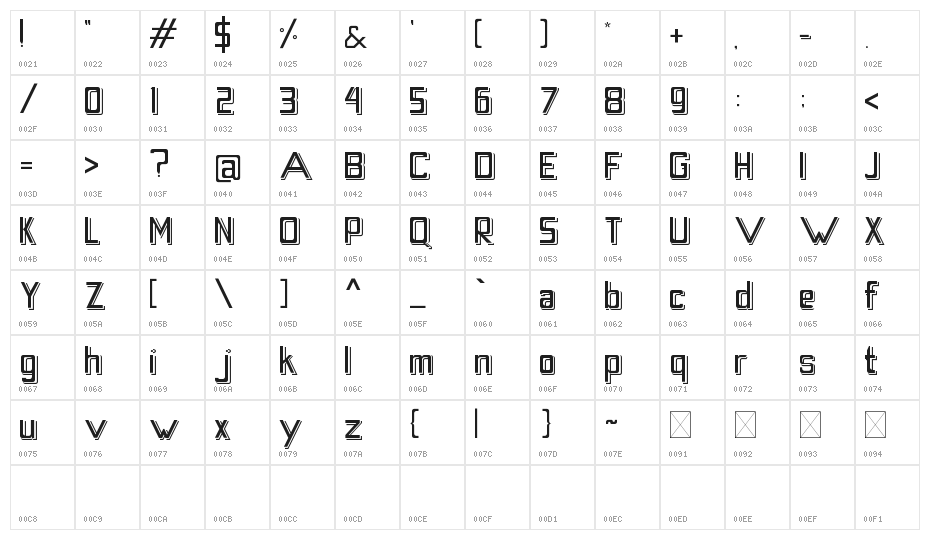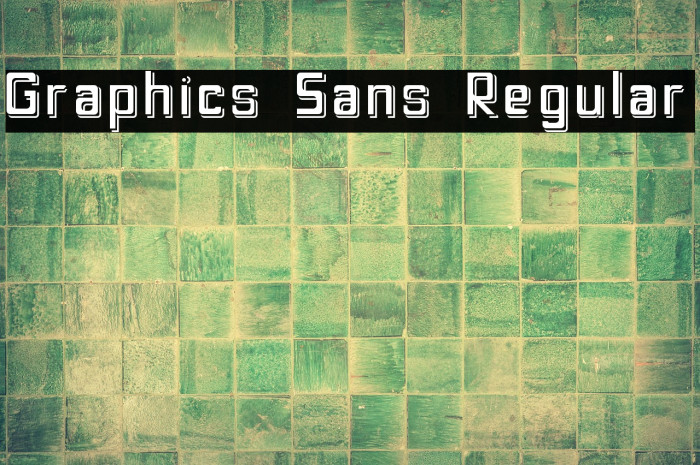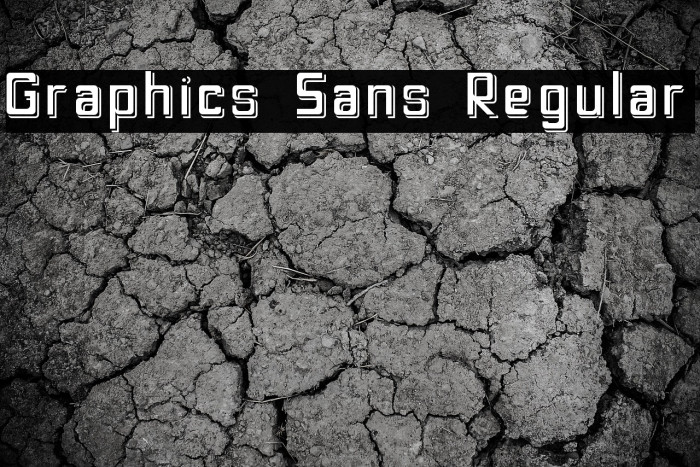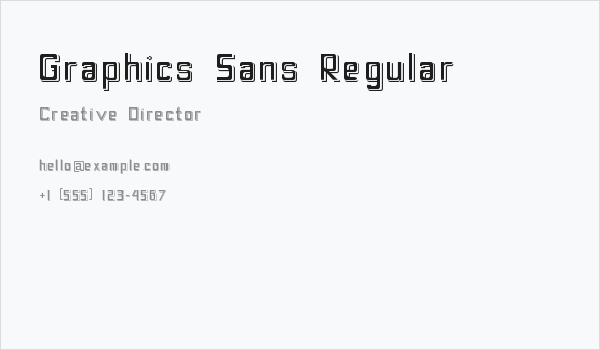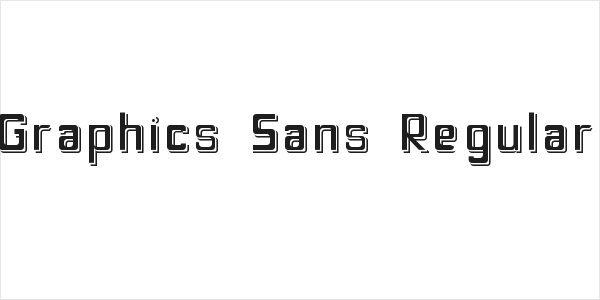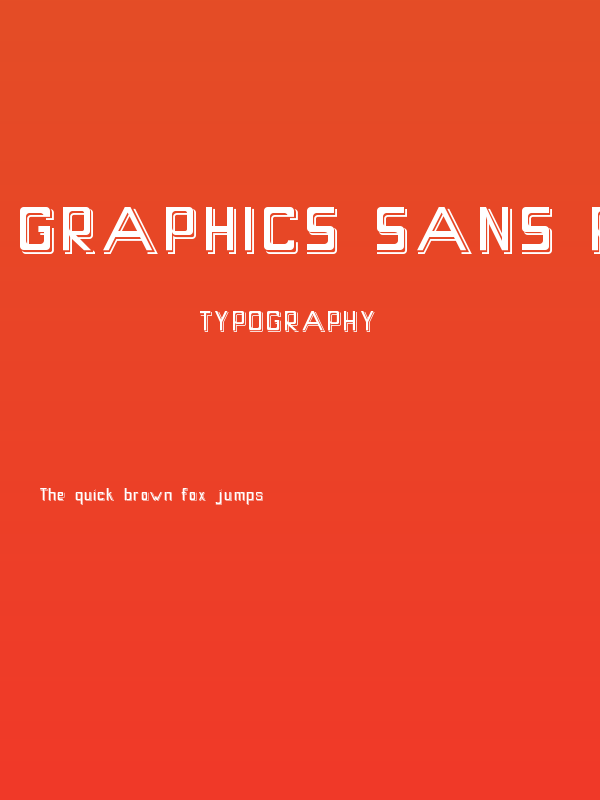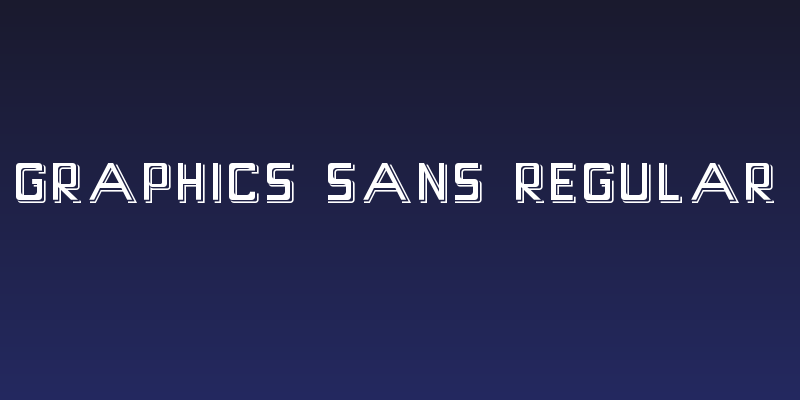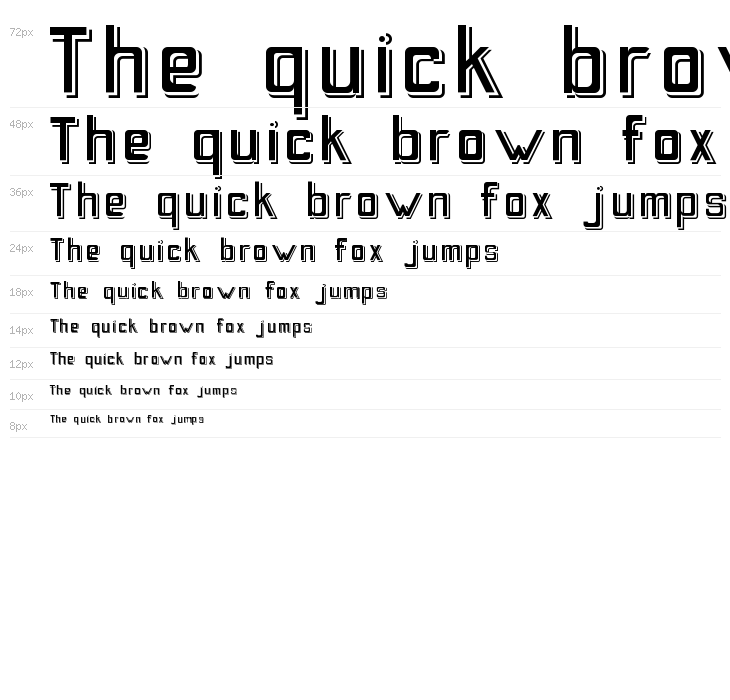
Graphics Sans Regular Font
Graphics Sans Regular Description
This font features a modern, geometric design with a distinct three-dimensional effect. The characters are constructed with bold, angular lines and a shadowed outline that gives them depth and a futuristic appearance. The uppercase and lowercase letters maintain a consistent style, with sharp edges and clean lines. The numerals and special characters follow the same design principles, ensuring uniformity across all glyphs. This font is ideal for projects that require a contemporary and eye-catching look, such as digital interfaces, posters, and branding materials. Its unique style makes it stand out, while still being legible and versatile.
| Proposed Projects | Ideal for digital interfaces, posters, branding materials, and futuristic designs. |